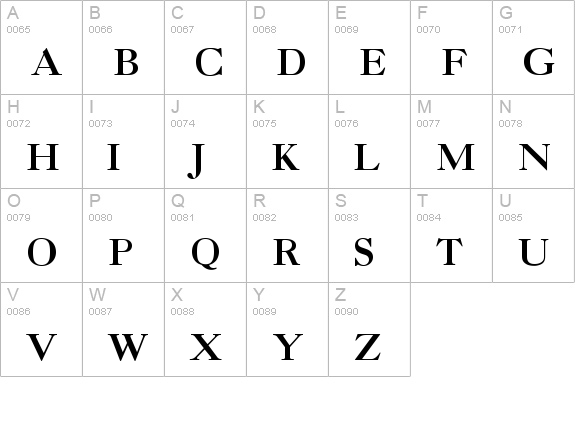
CaslonBoldZL Font Details
CaslonBoldZL is a classic and timeless font that exudes elegance and sophistication. With its bold and commanding presence, this font is perfect for creating eye-catching headlines, posters, and logos. The strong and sturdy serifs give CaslonBoldZL a sense of tradition and authority, making it a versatile choice for both print and digital designs. What sets CaslonBoldZL apart is its unique combination of modern flair with a touch of vintage charm. The letterforms are meticulously crafted to ensure legibility and readability, making it ideal for a wide range of design projects. Best of all, CaslonBoldZL is available for free download at FontsMarket.com, allowing designers and creatives to access this stunning font without any cost. Don't miss out on the opportunity to add CaslonBoldZL to your font collection and elevate your designs to the next level.